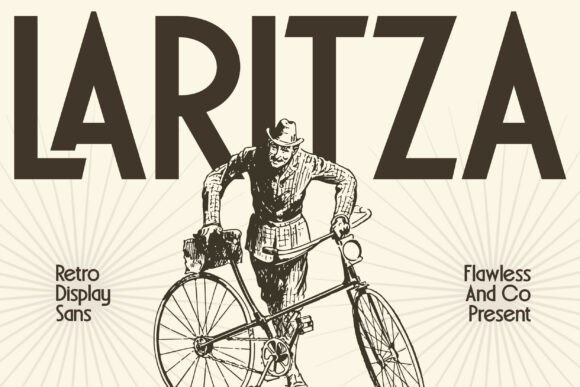
Laritza: A Bold Retro Sans Serif for Editorial Impact
As someone who designs newsletters, ebooks, and digital magazines—where every typographic choice shapes tone, trust, and attention—I’ve grown selective about display fonts. Laritza stands out not just for its visual confidence, but for how thoughtfully it serves editorial work. It’s a sans serif font rooted in vintage poster aesthetics, yet built for modern publishing needs: clean geometry, strong letterforms, and a no-nonsense presence that commands space without sacrificing clarity.
Laritza isn’t meant for body text—it’s a display font with purpose. Its uppercase-heavy rhythm, tight spacing, and assertive stroke contrast make it ideal for moments where you need readers to pause, recognize, and remember. Think magazine covers that stop scrollers mid-feed, ebook titles that hold weight on a Kindle thumbnail, or newsletter headers that signal authority before the first sentence is read. The retro sensibility isn’t nostalgic gimmickry; it’s functional personality—structured enough for professionalism, expressive enough for creative brands.
In editorial layouts, Laritza excels where hierarchy meets voice. Use it for section headings in long-form blog posts to break rhythm and re-engage attention. Apply it to pull quotes in printables or PDF guides—its boldness ensures legibility even at smaller sizes on screen or in grayscale print. For wedding planners or wellness coaches launching a branded workbook, Laritza lends warmth and distinction to chapter openers and worksheet titles without feeling cold or corporate. And because it’s a sans serif with geometric discipline—not a script or handwritten font—it maintains credibility across serious topics like finance guides or educational course materials.
Consider a lifestyle blog redesign: swapping generic headline fonts for Laritza instantly sharpens visual identity. Pair it with a warm, highly readable serif font—like Merriweather or PT Serif—for body copy, and you gain both contrast and cohesion. That pairing works across formats: web articles, exported PDF newsletters, and printed zines alike. For captions, navigation menus, or sidebar text, a neutral sans serif like Inter or Open Sans complements Laritza’s boldness without competing. The result? A clear typographic ecosystem—one voice for impact, another for endurance.
Laritza includes multiple weights (Light, Regular, Bold, Black), true italics, and extended Latin character support—making it viable for bilingual blogs or international newsletters. While it doesn’t include extensive diacritics for Central/Eastern European languages, it covers most Western European needs reliably. Ligatures and stylistic alternates are minimal but intentional: subtle flourishes that reinforce its vintage roots without undermining readability. For designers building templates—whether Notion workbooks, Canva newsletter kits, or printable planners—these details matter. Consistency across assets starts with type that behaves predictably across platforms.
On screen, Laritza renders cleanly at larger sizes, especially in modern browsers and email clients that support web fonts. For mobile-first layouts, test headline sizing carefully: its condensed proportions shine at 36px and up, but can feel cramped below 24px without generous line height. In PDF exports—common for lead magnets and client deliverables—embedding Laritza ensures your typography stays intact, preserving spacing and weight fidelity. For print, its high x-height and open counters prevent ink spread issues common with delicate serifs or ultra-thin displays.
Where Laritza truly earns its place is in brand-building for independent creators. A recipe ebook gains charm when chapter titles use Laritza’s confident caps, while ingredient lists stay in a friendly, airy sans serif. A coaching newsletter uses it for “This Week’s Insight” headers—creating instant visual recognition across issues. Even simple quote graphics shared to Instagram or Pinterest benefit: its retro geometry reads clearly at thumbnail size, and its lack of ornamental distraction keeps focus on the message.
What makes Laritza more than just another display font is how it balances specificity with flexibility. It’s not trying to be everything—a versatile workhorse sans serif or a delicate script—but it knows exactly what it does well: anchor attention, define voice, and unify visual language across touchpoints. Whether you’re refreshing a decade-old blog, launching your first digital magazine, or designing a client’s annual report, Laritza offers a grounded, memorable entry point into stronger editorial design.
Typography isn’t decoration. It’s structure, signal, and silent persuasion. With Laritza, you’re not just choosing a font—you’re choosing how your ideas land, how your brand holds space, and how your readers decide, within seconds, whether to stay.